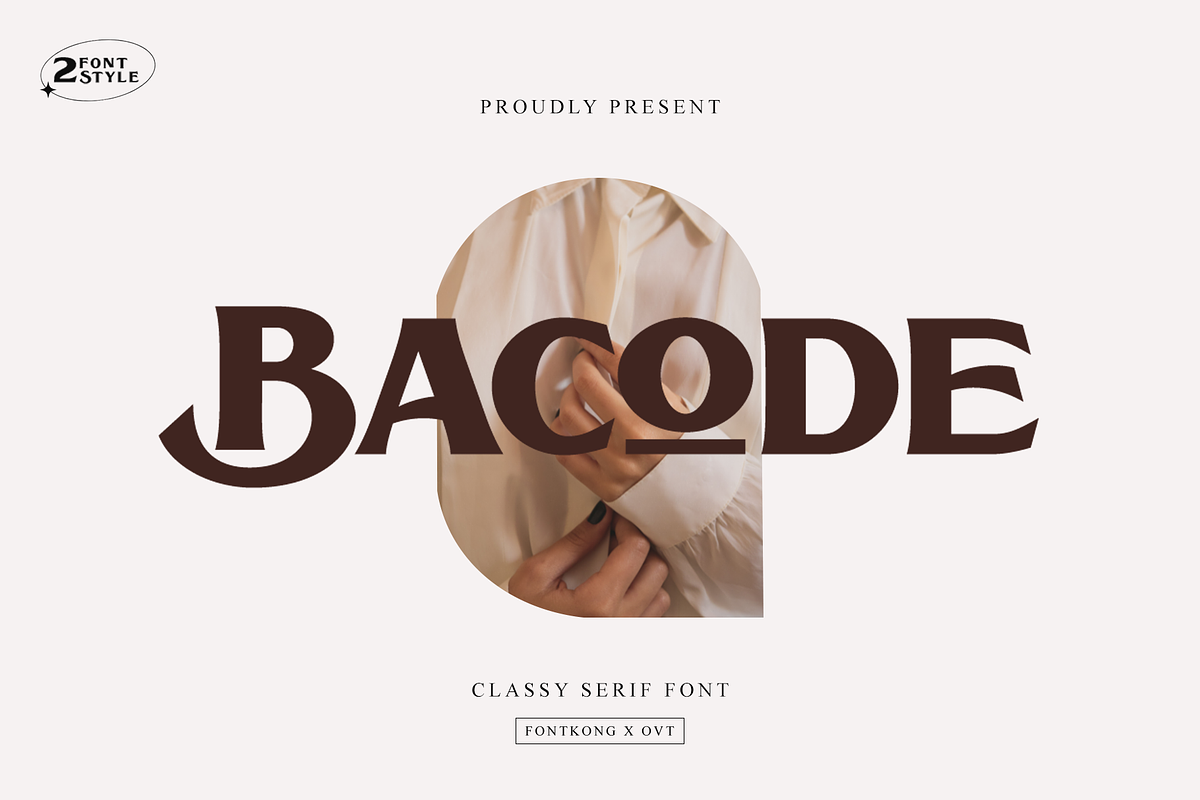
This elegant serif font, Bacode, is the perfect choice for your next design project. Its stylish and sophisticated design adds a touch of professionalism and class to any work. Test it for free by downloading Bacode - Classy Serif Font Free Download today!